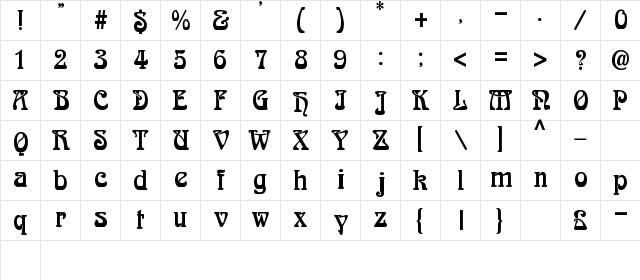
Acapulco Regular Free Font
Acapulco Regular
Design Context for Acapulco
Acapulco is a composed and adaptable typeface that performs quietly and consistently across a wide range of design contexts.